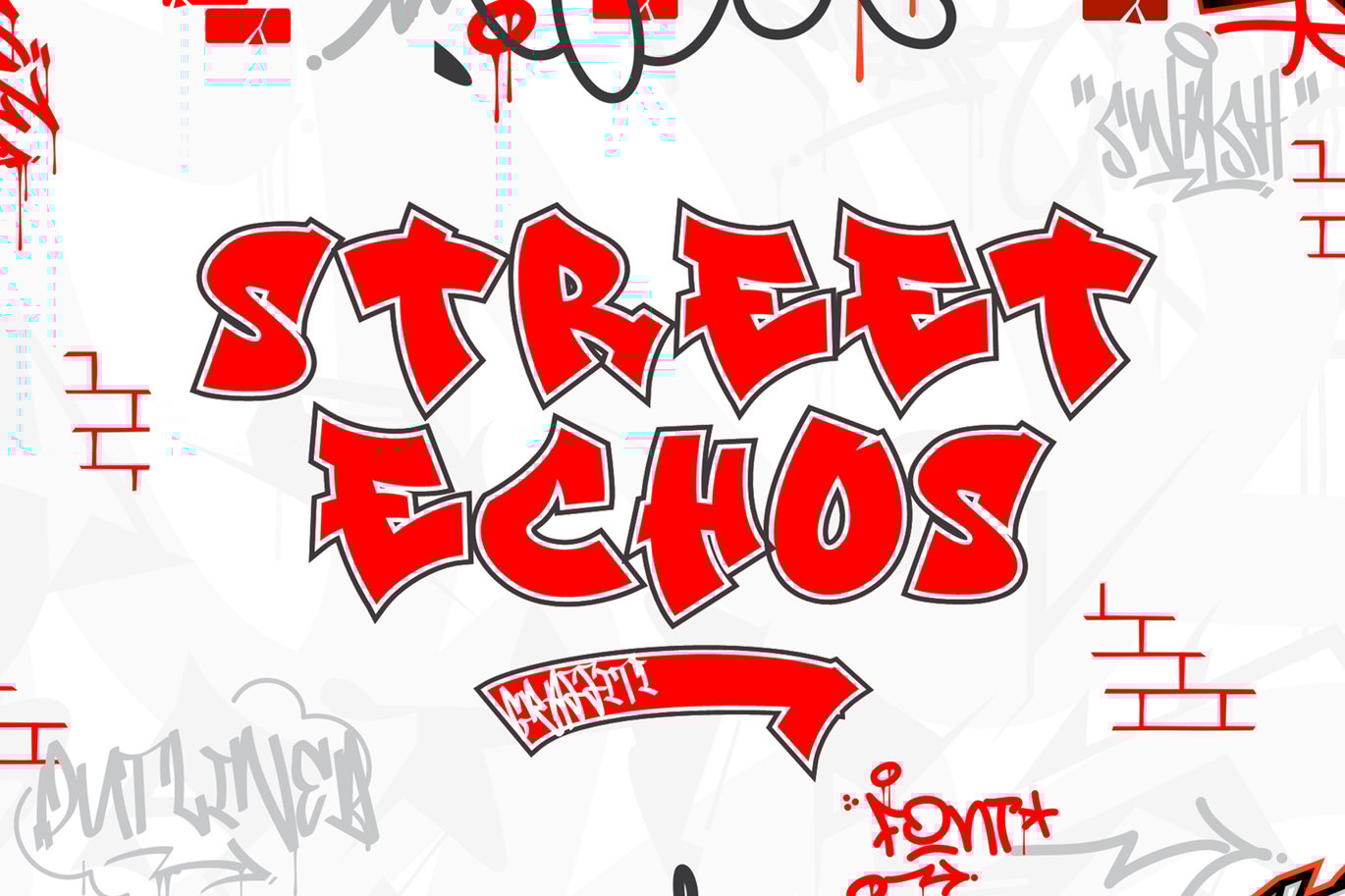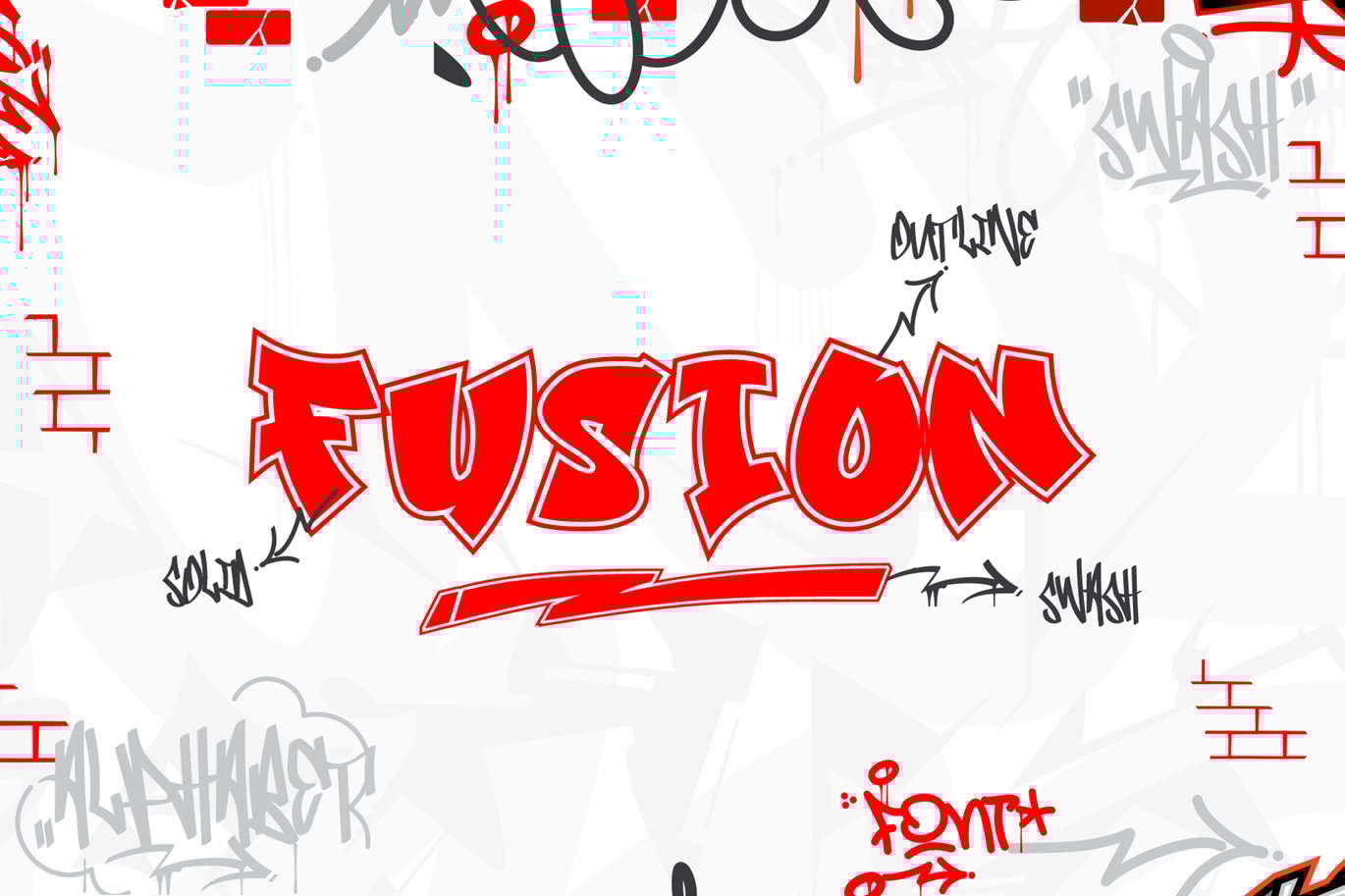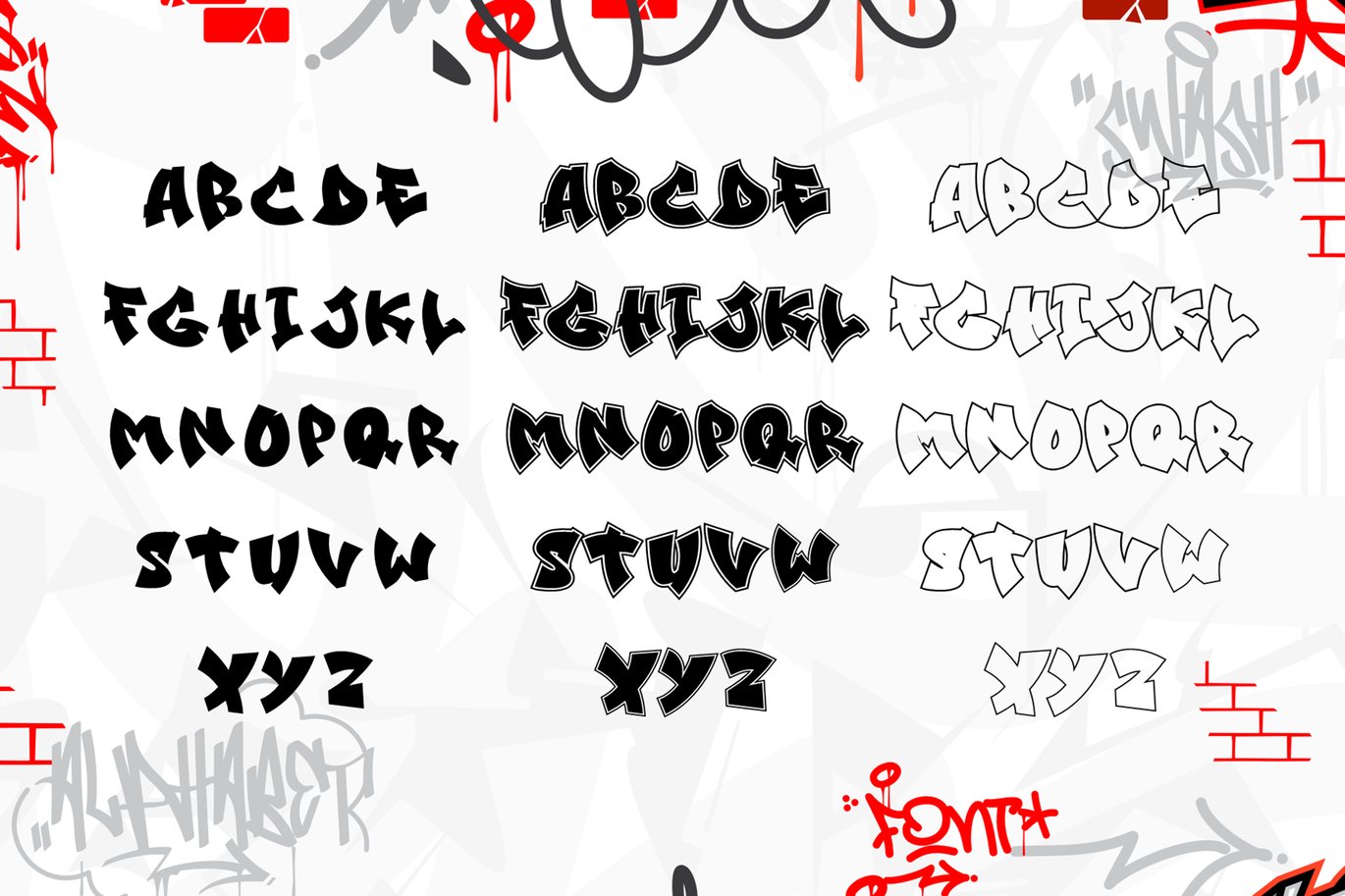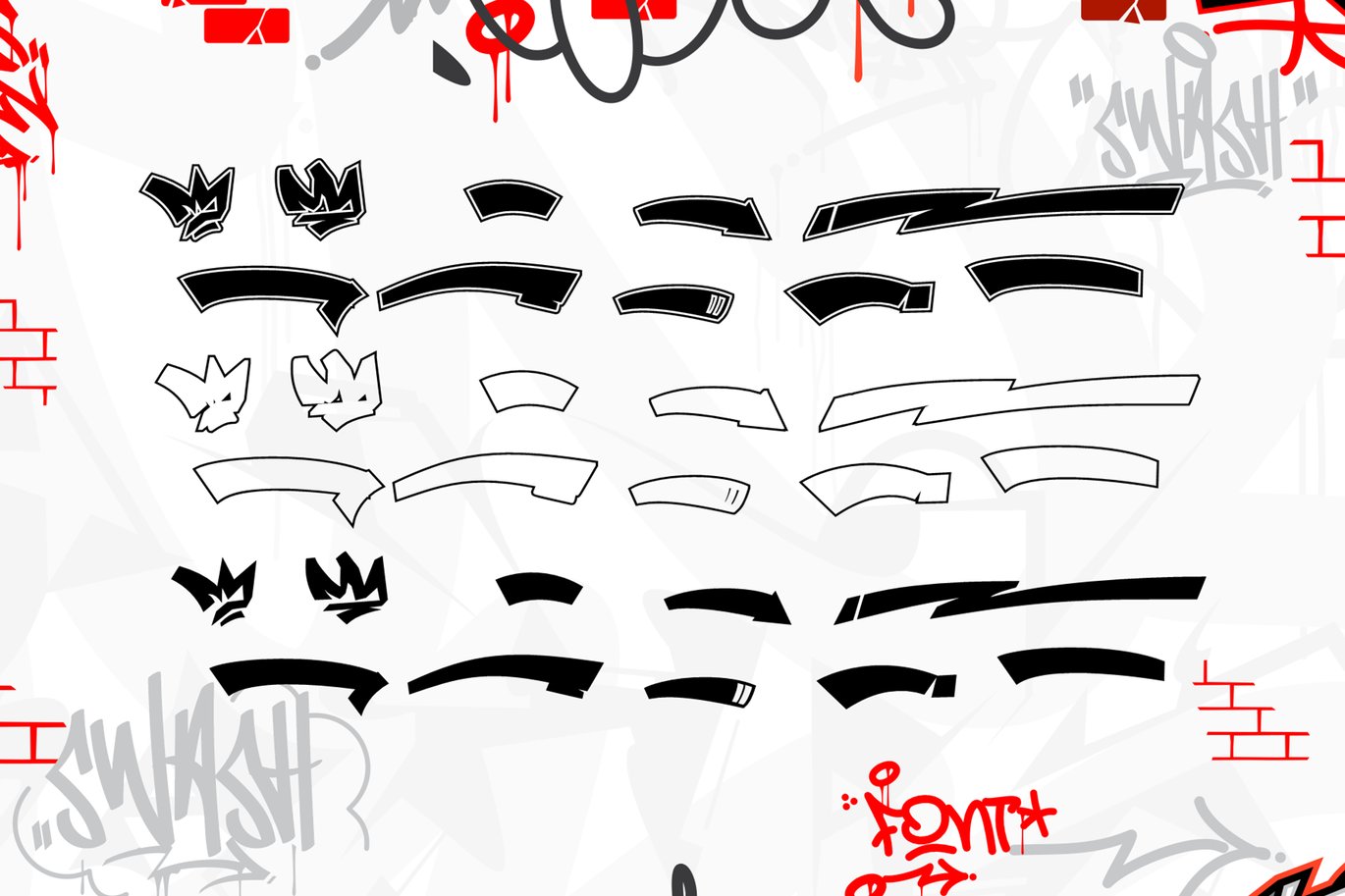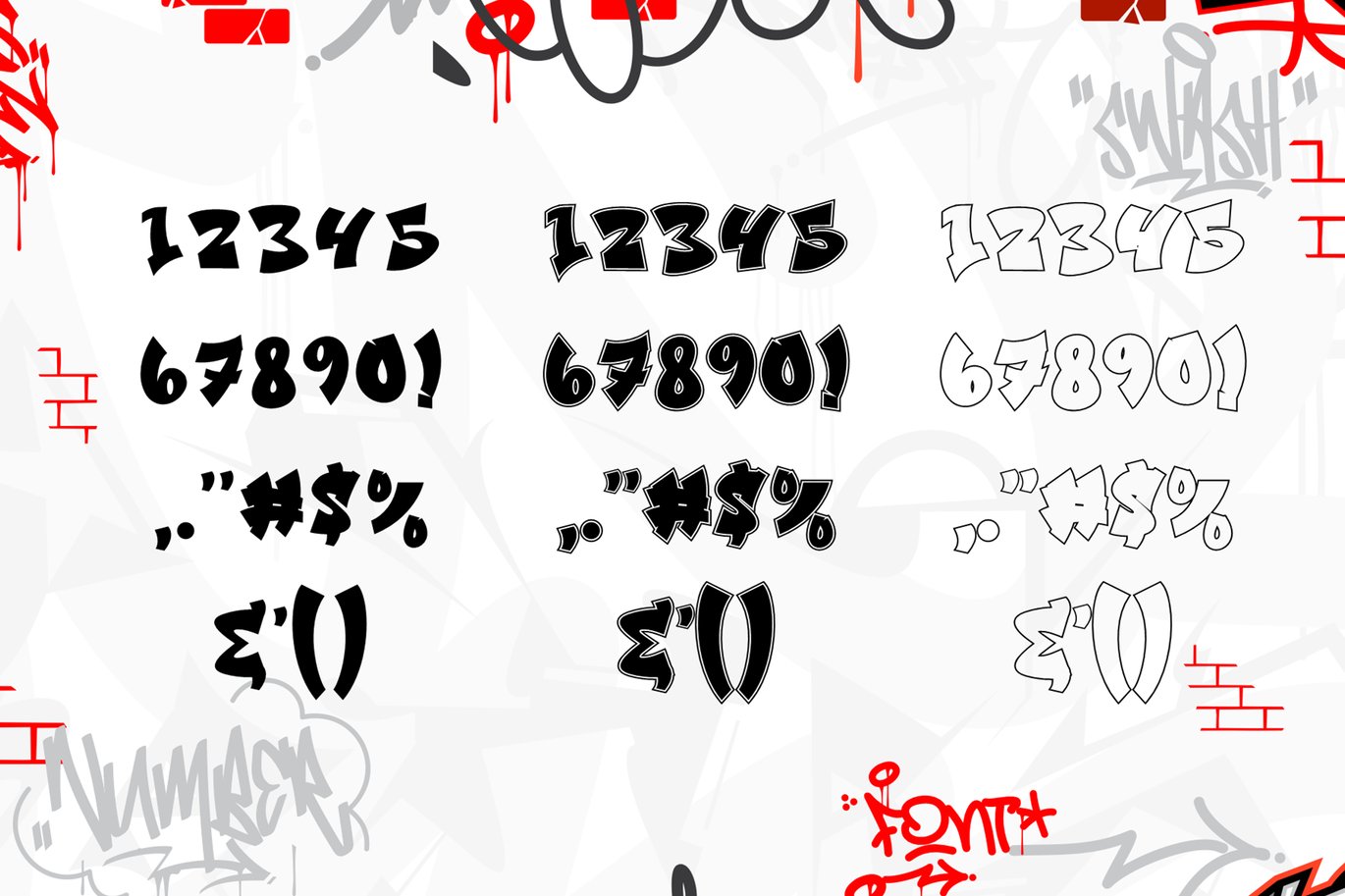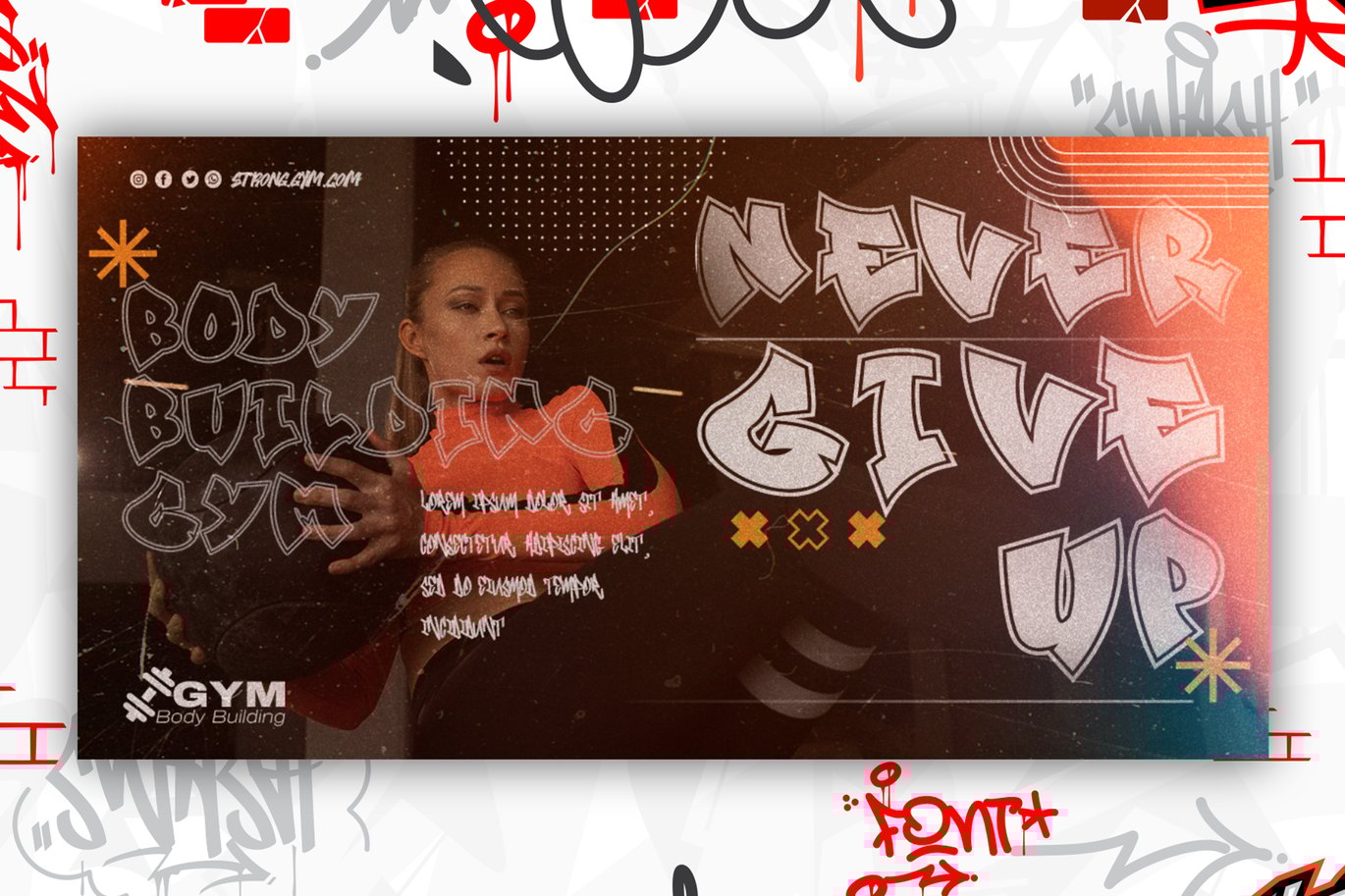
Street Echos – Outlined Graffiti Font
Street Echos is a graffiti font with three-character styles: solid, outlined, and a full version that combines solid with outline. This versatile font is perfect for any street or urban-themed project, bringing your designs a dynamic and edgy look. Whether you’re working on posters, branding, or digital art, Street Echos adds an authentic graffiti vibe that stands out. Including multiple styles allows for creative layering and customization, making it a valuable addition to any designer’s toolkit.
- Included Stylistic Alternates
- Versatile for branding, headline, or printing product